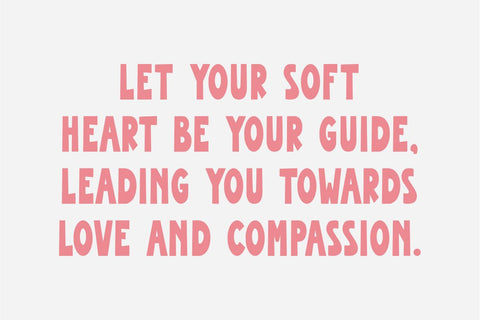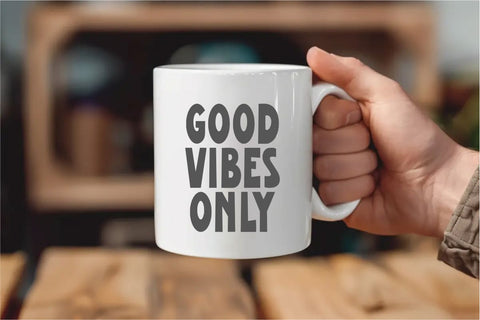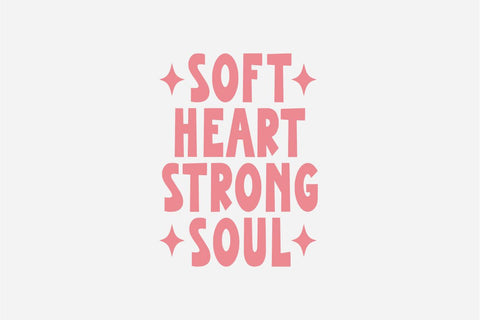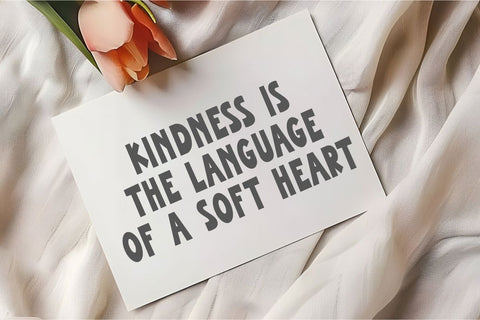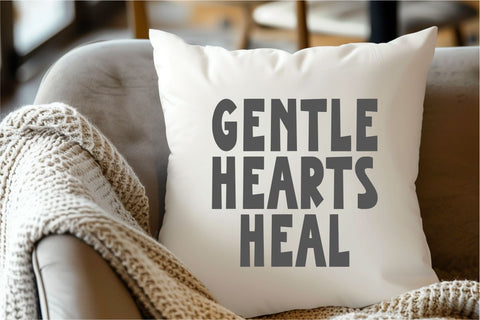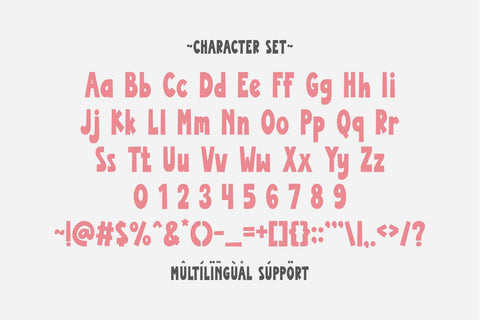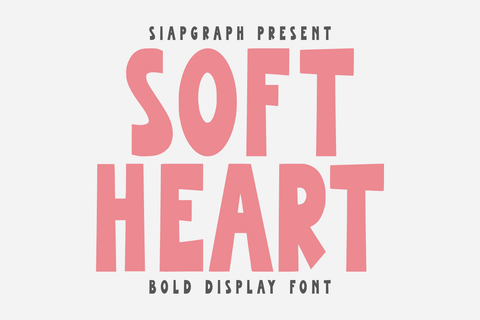
Soft Heart - Bold Quirky Font
Soft Heart is a bold and playful display font with soft curves and a touch of quirkiness. Its chunky letters and cheerful personality make it perfect for kids-related projects, Valentine’s Day crafts, fun branding, poster headlines, and social media graphics. This font brings a warm, friendly vibe that stands out in any design. Whether you're crafting cards, creating logos, or designing merchandise, Soft Heart adds a bold and loving statement.